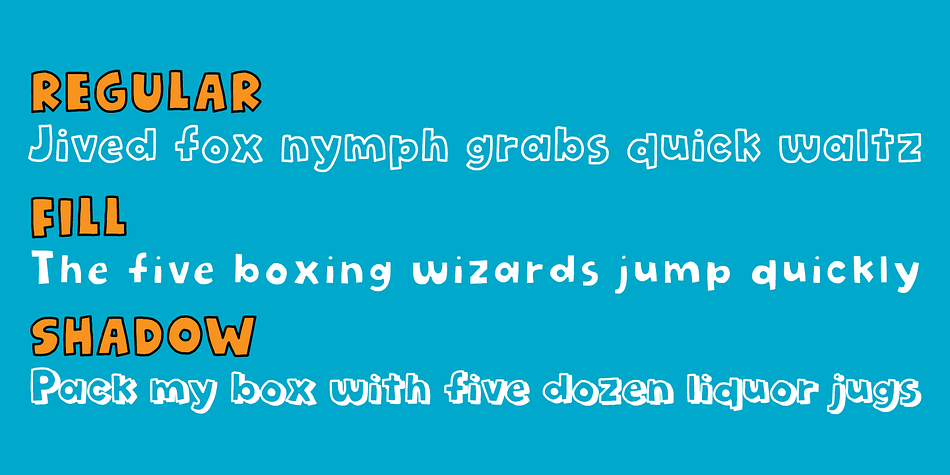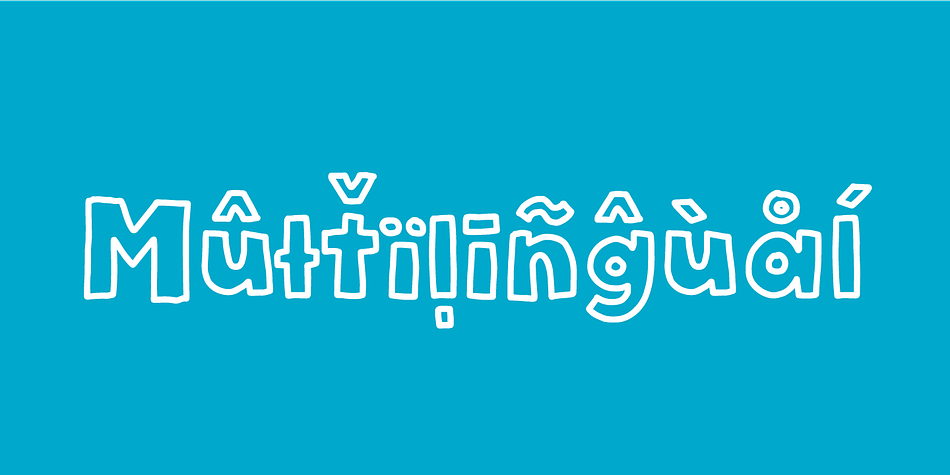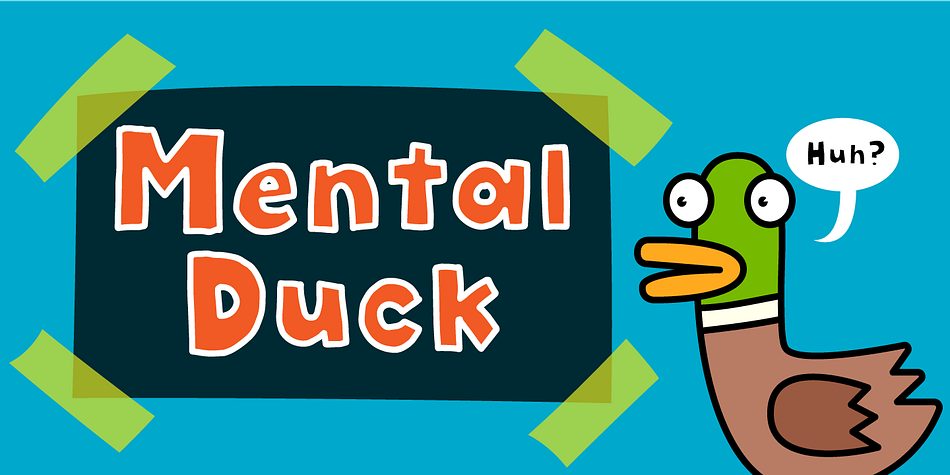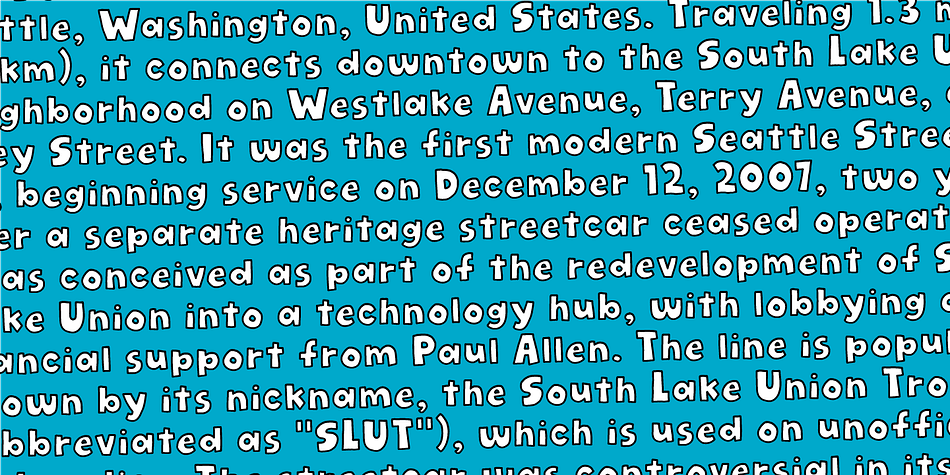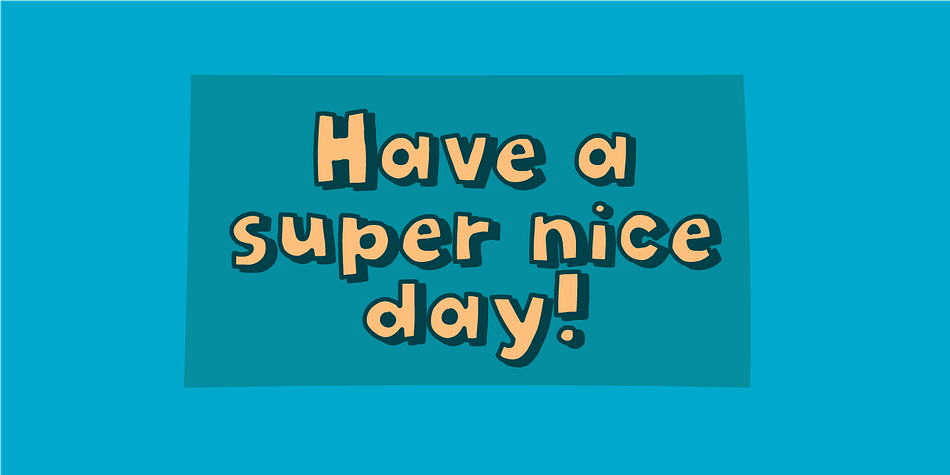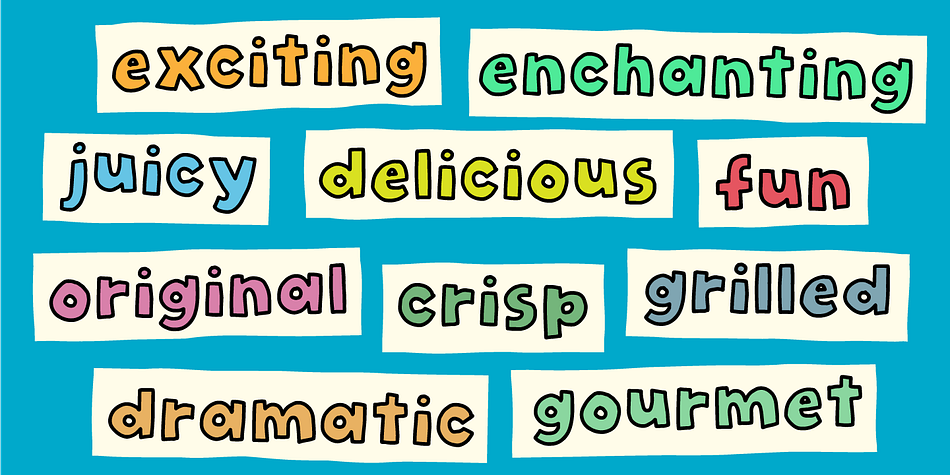
Designed by Jakob Fischer, Mental Duck is a hand display and hand drawn font family. This typeface has three styles and was published by Pizzadude.dk.
Drawn with a thick marker, I present to you: Mental Duck! A loose and laid back comic book font, suitable for both comics, posters, products for children, toys ... in fact anything that needs a legible and handdrawn look. Comes in three different versions: Regular, Fill and Shadow. Mix them for great results!